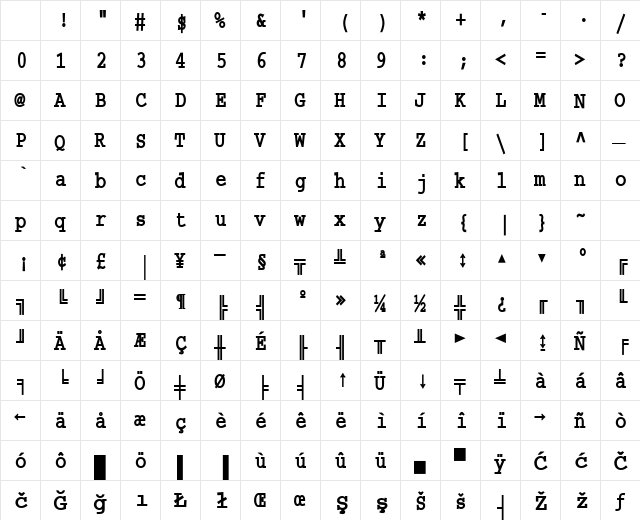
Complete BARR-Courier A glyph index. Displaying only characters natively supported by BARR-Courier A font.
BARR-Courier uses fixed-width spacing throughout, giving it the structured, systematic character associated with coding environments and technical documentation.
Pro Tip: Use BARR-Courier with slightly increased line-height for extended reading - fixed-width spacing can feel dense in longer passages without extra breathing room.